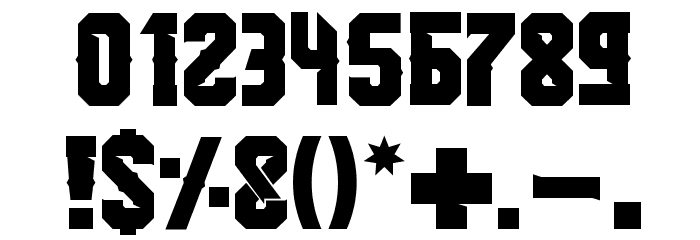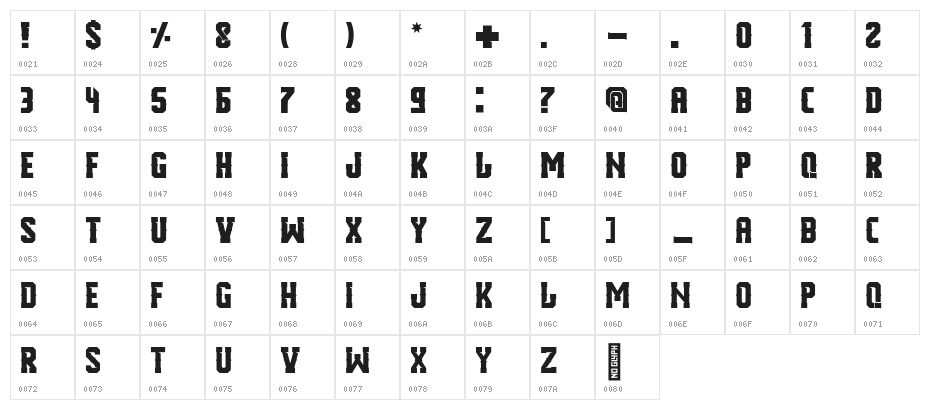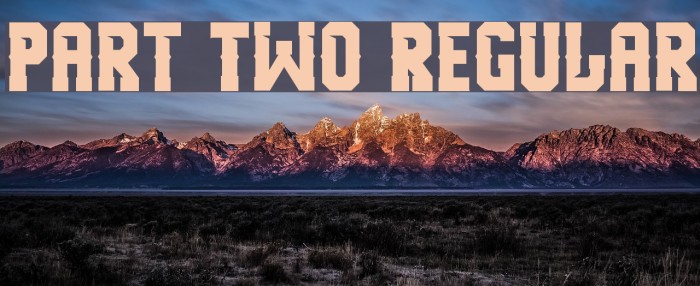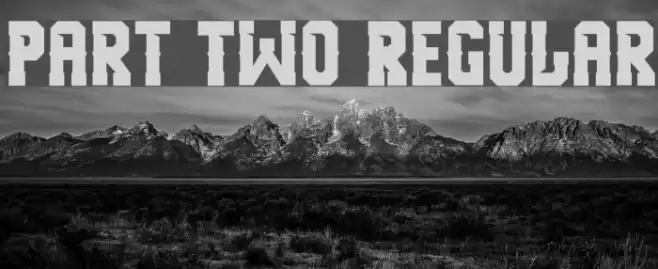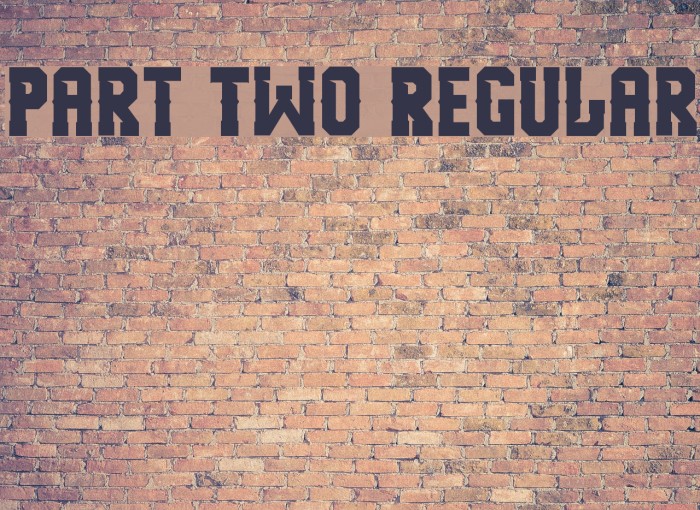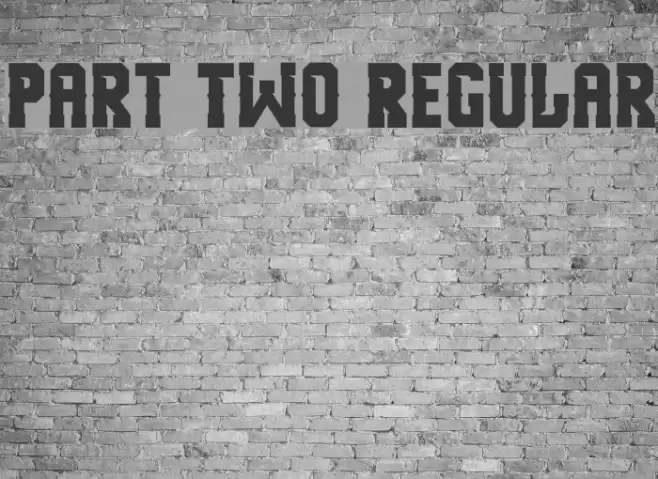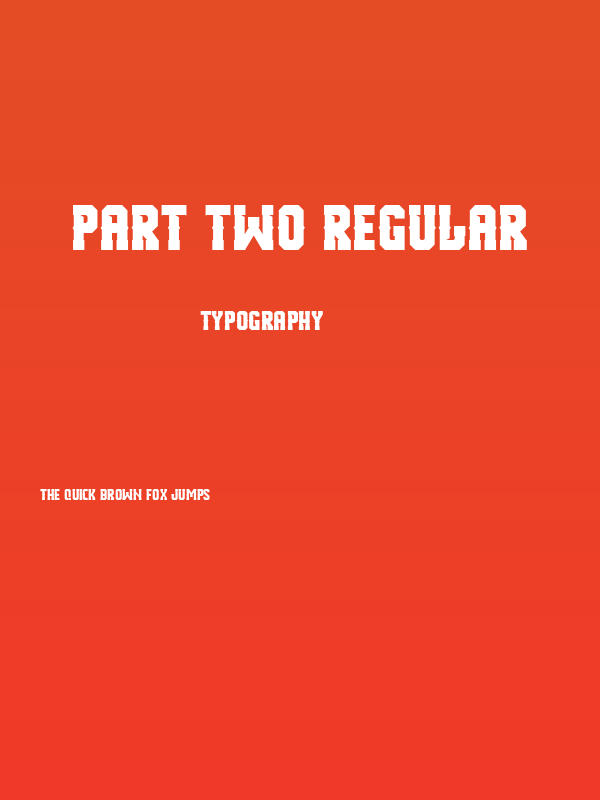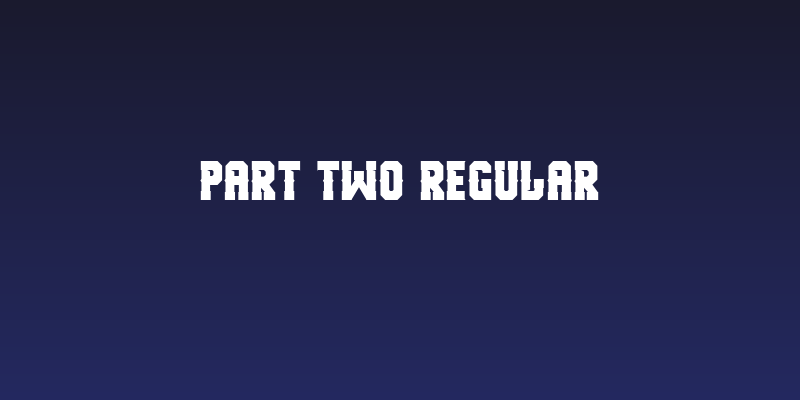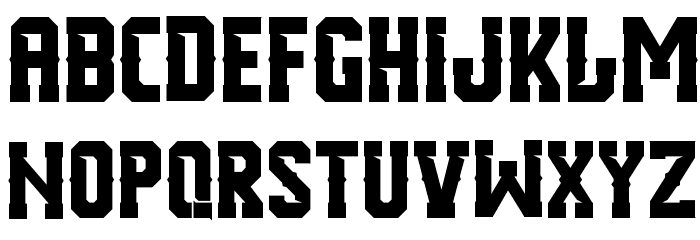
Part Two Regular Font
Part Two Regular Description
This font features a bold, geometric design with strong, angular lines and a blocky appearance. The characters are uniformly wide, giving a sense of stability and strength. The uppercase letters are particularly striking, with a consistent height and width that creates a cohesive look. The numbers and special characters maintain the same boldness, ensuring readability and impact. This font's style is reminiscent of industrial or futuristic themes, making it suitable for projects that require a strong visual presence.
| Overall Style | Modern, Industrial |
| Proposed Projects | Ideal for branding, posters, headlines, and any design requiring a strong, impactful typeface. |